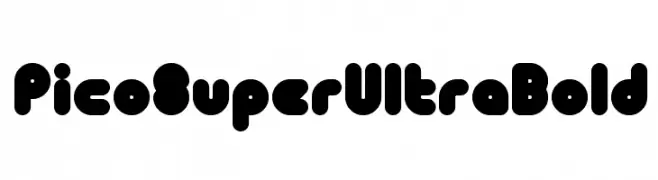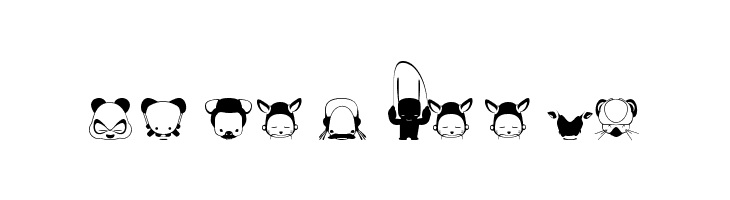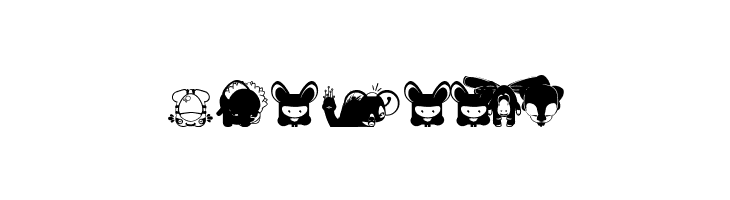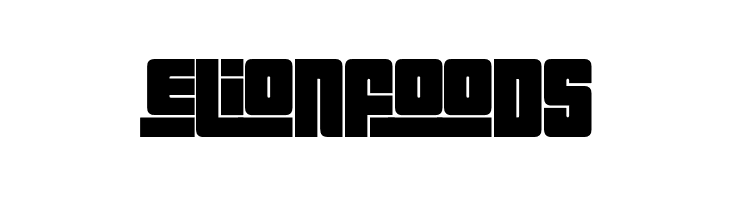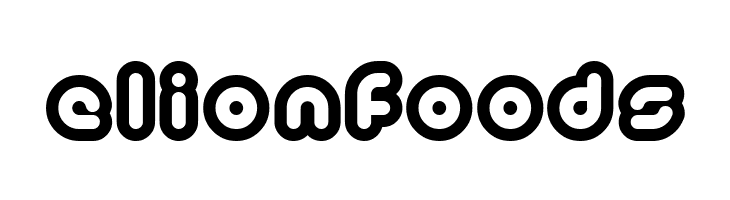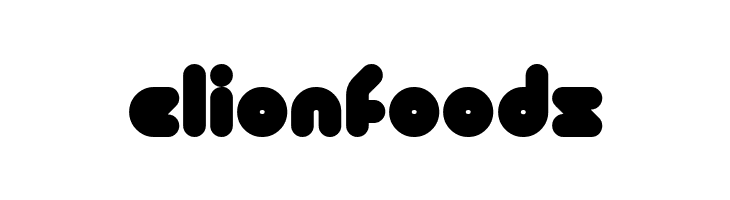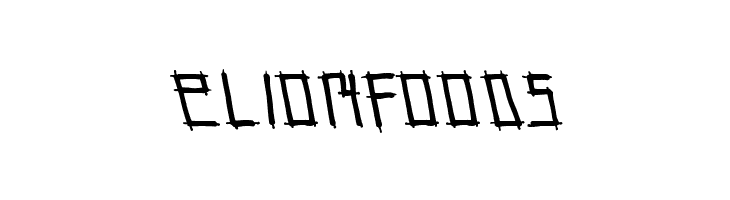
( Fonts by Maniackers Design - www.mksd.jp OFF SITE )
A bold, playful font with rounded, bubble-like characters.
( Fonts by Maniackers Design - www.mksd.jp OFF SITE )
A playful, bold font with rounded, bubble-like characters.
( Fonts by Maelle.K - Thomas Boucherie )
A decorative dingbat font featuring cute cartoon faces.
( Fonts by Maelle.K - Thomas Boucherie )
A decorative dingbat font featuring quirky cartoon characters.
( Fonts by Tom Raaijmakers )
An edgy, barbed wire-inspired font with sharp, angular lines.
( Fonts by Maniackers Design - www.mksd.jp OFF SITE )
A bold, geometric font with a modern, digital aesthetic.
( Fonts by Maniackers Design - www.mksd.jp OFF SITE )
A modern, geometric font with rounded edges and uniform line thickness.